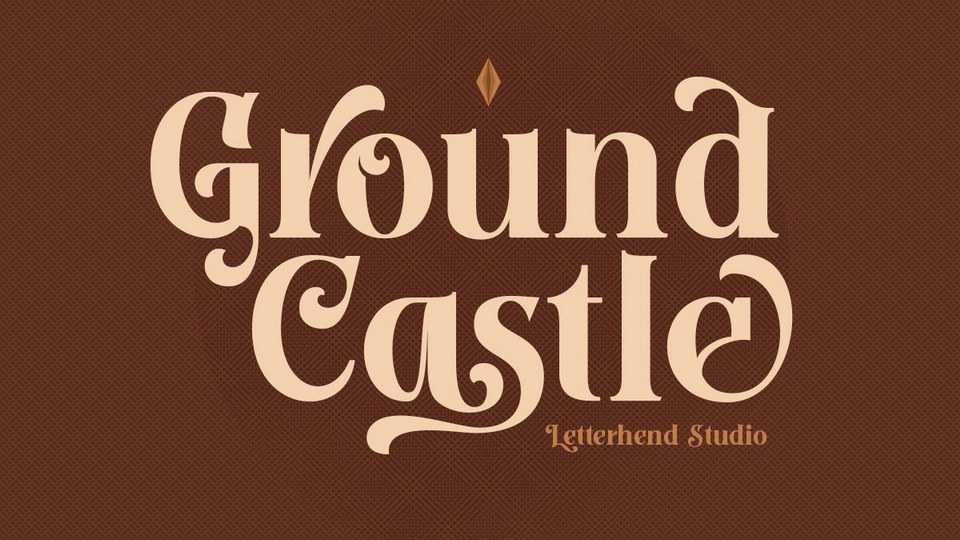
Download Ground Castle font, an elegant high contrast serif typeface. Ground Castle is defined by smooth curves and is perfect for fashion branding or editorial designs.